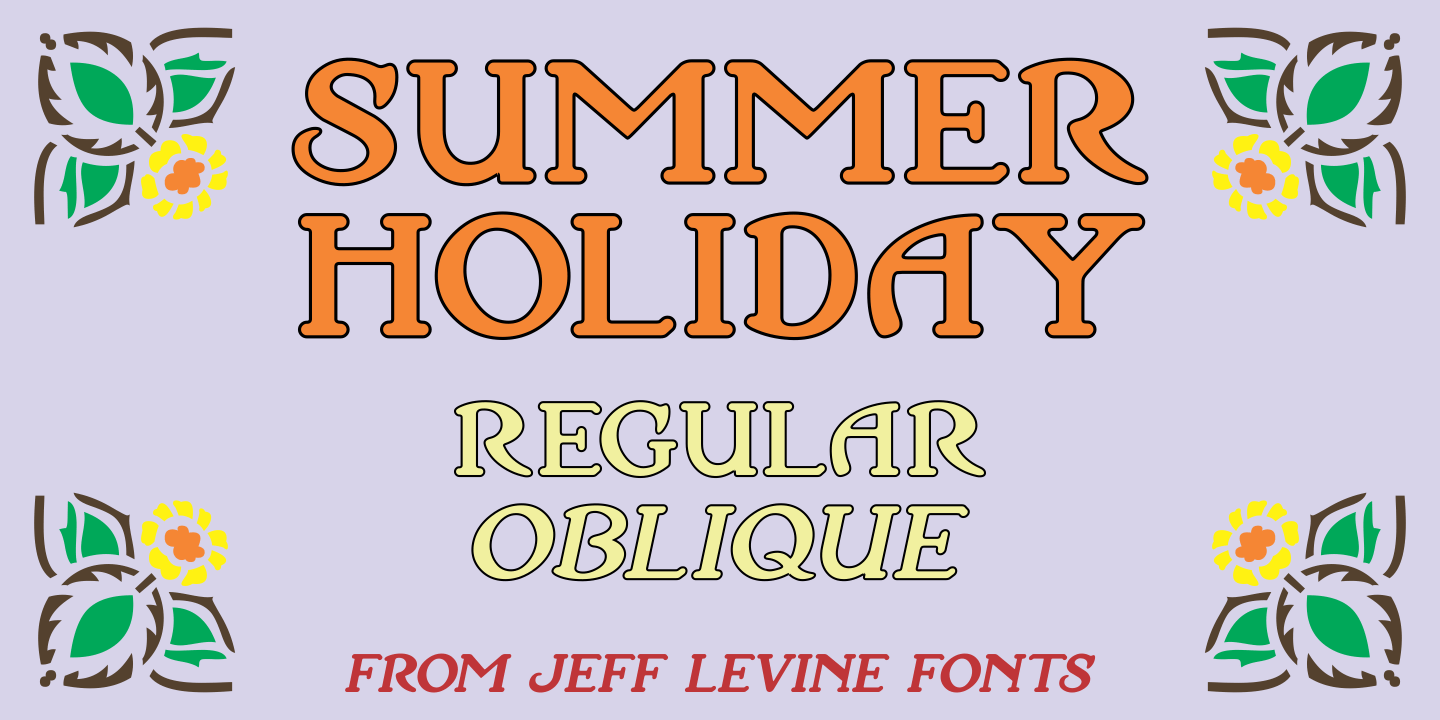
Summer Holiday
Buy NowHand lettered production credits for the1930 film “Holiday” inspired the digital type revival Summer Holiday JNL; available in both regular and oblique versions.
An Art Nouveau influence is reflected in this pleasant, casual serif typeface.